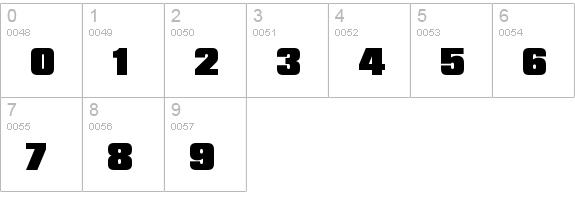
CompactaPEEBla Font Details
CompactaPEEBla font is a sleek and modern typeface that exudes sophistication and elegance. Its clean lines and compact design make it an ideal choice for a wide range of design projects, from branding to editorial work. The geometric shapes and sharp edges of CompactaPEEBla give it a contemporary feel that is perfect for creating a bold and impactful visual presence. The versatility of this font allows it to be used in various design applications, from digital interfaces to print materials. Whether you're designing a website, a poster, or a logo, CompactaPEEBla font will bring a touch of style and professionalism to your project. Best of all, CompactaPEEBla font is available for free download at FontsMarket.com. This means you can easily access this high-quality font and use it in your projects without any cost. Don't miss out on the opportunity to enhance your designs with the sleek and stylish CompactaPEEBla font today!